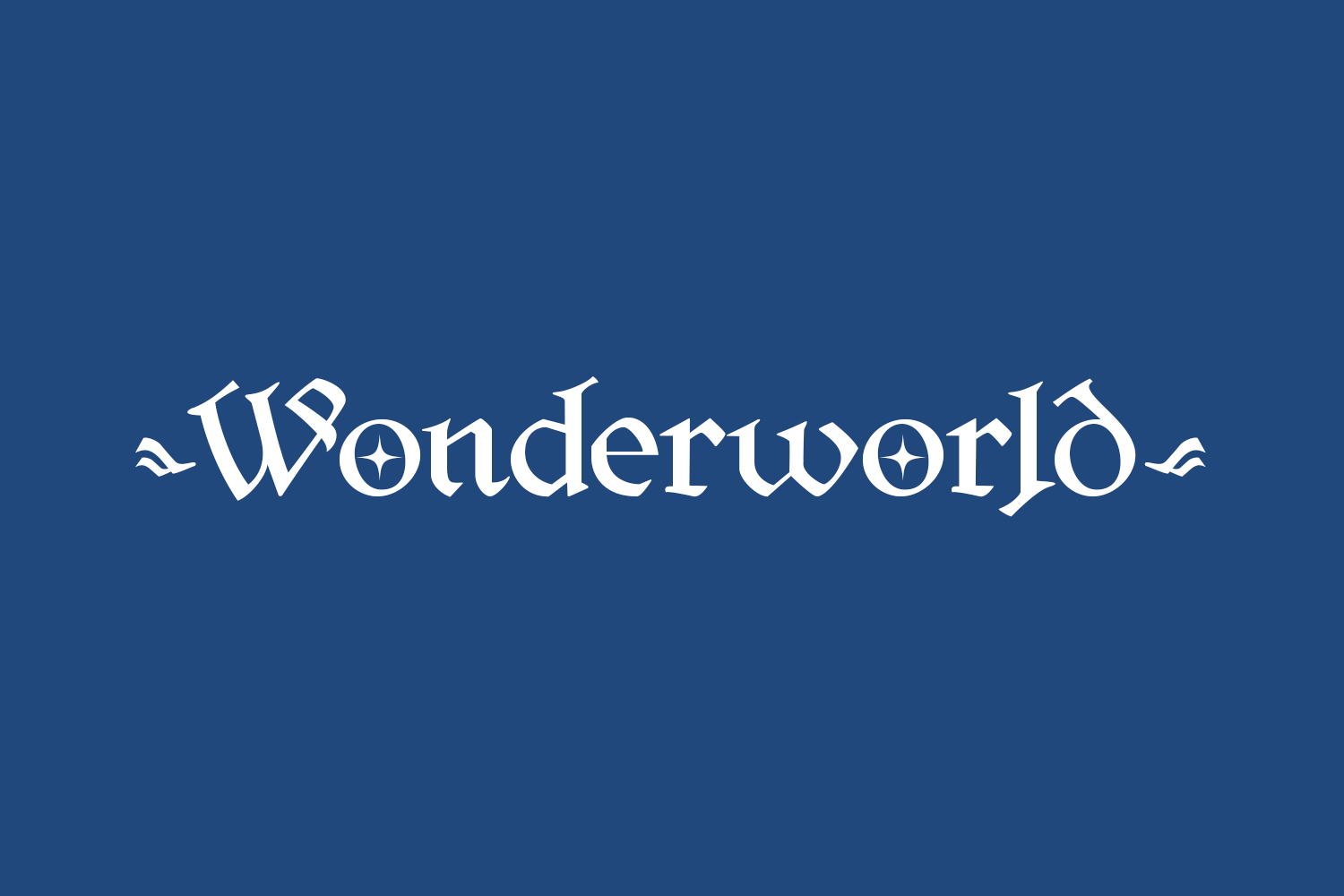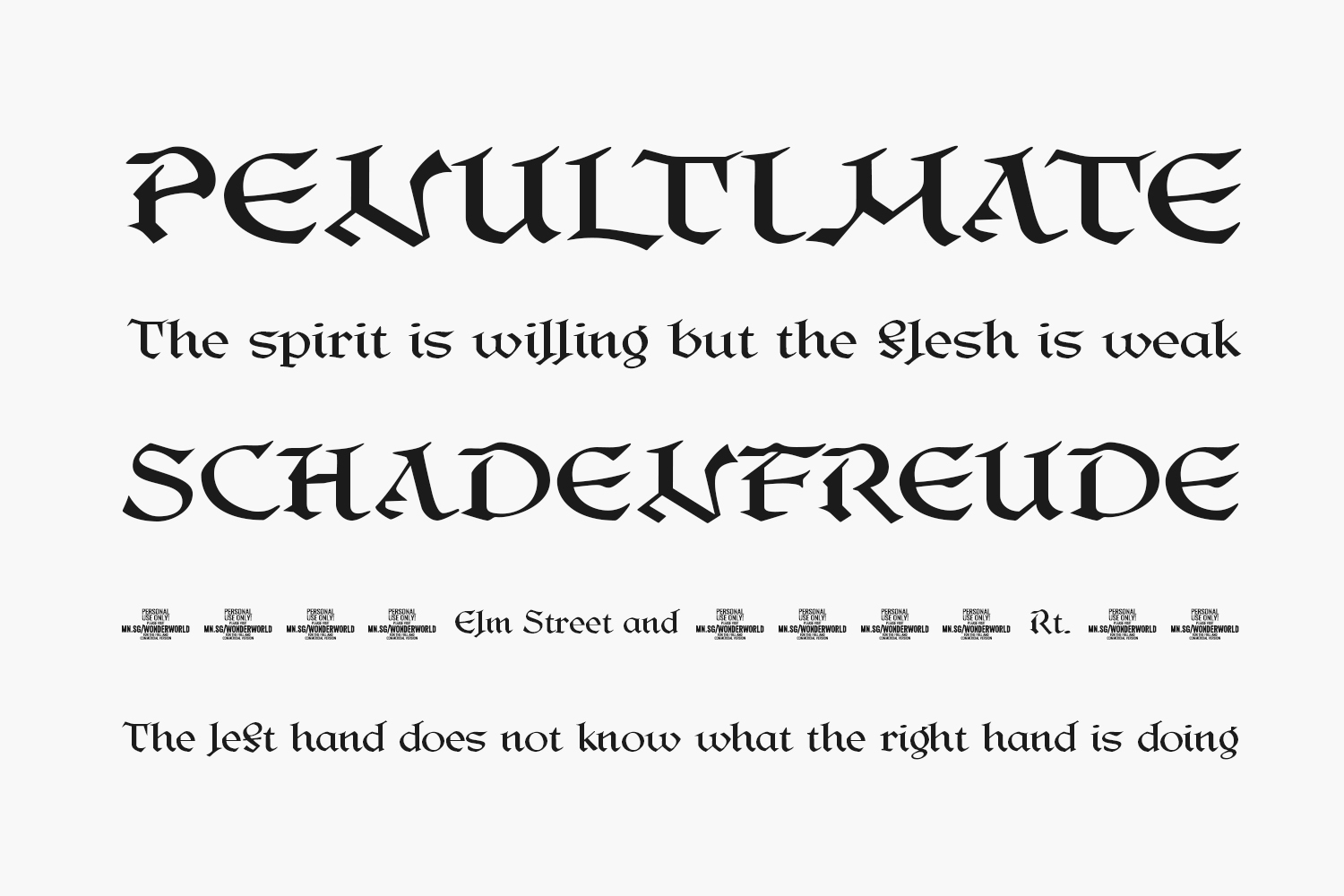
Wonderworld Free Font is a typeface designed in a Gothic or Medieval style, featuring ornate and intricate details. It is a decorative font that is suitable for use in a variety of design projects that require a vintage or retro feel.
The font features tall and narrow letterforms, with sharp, pointed serifs and elaborate embellishments. The uppercase letters are particularly dramatic, with bold and dramatic flourishes that give them a powerful and majestic appearance.